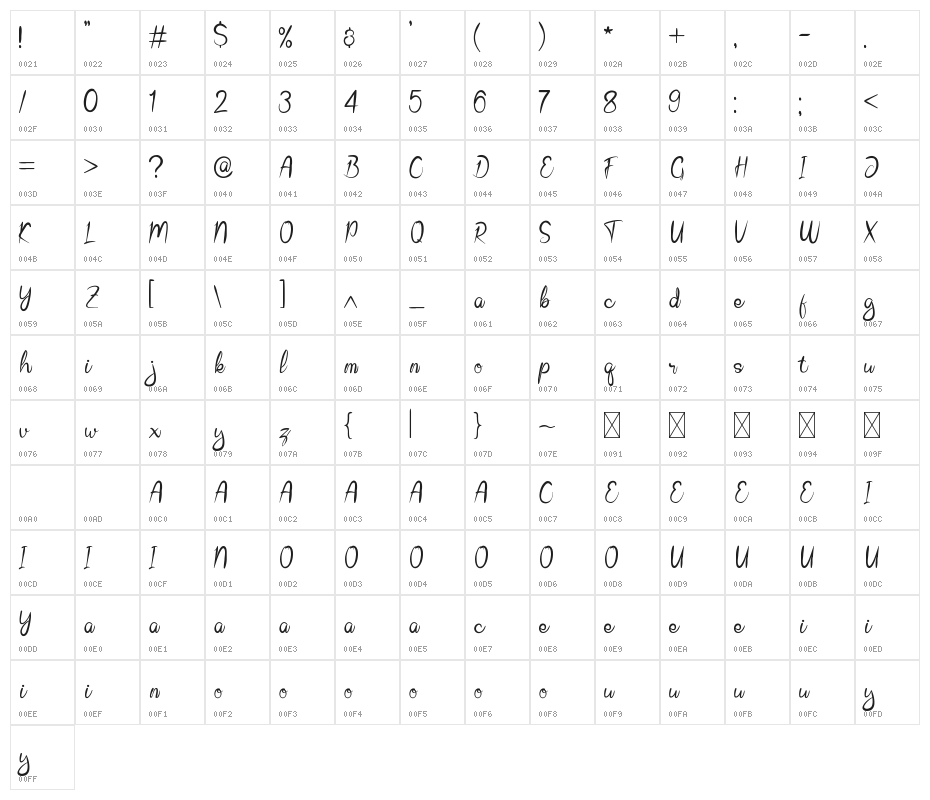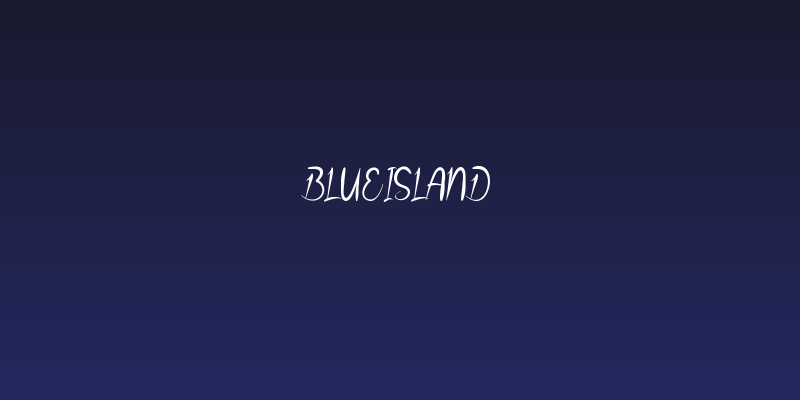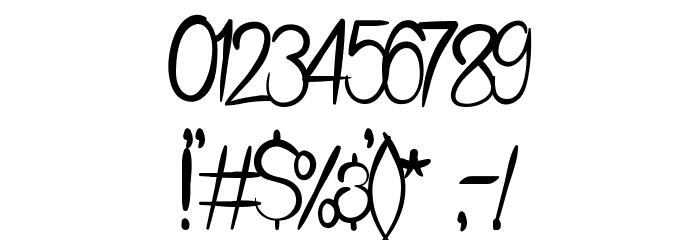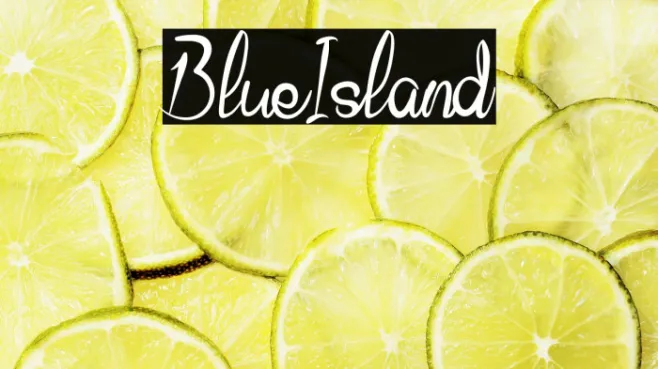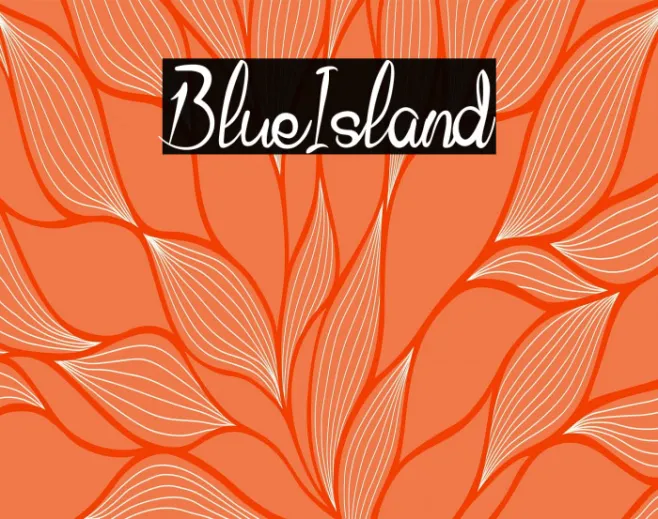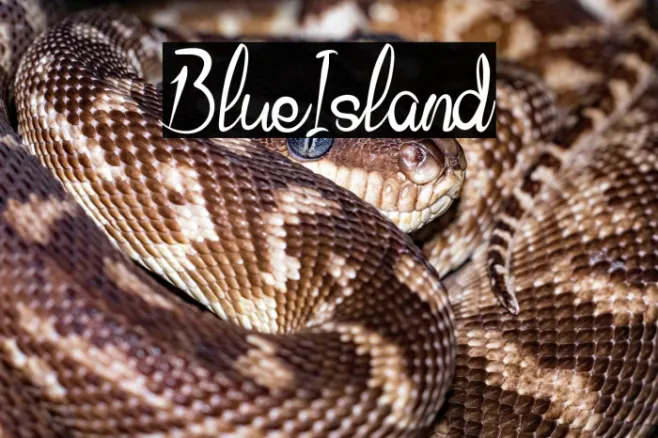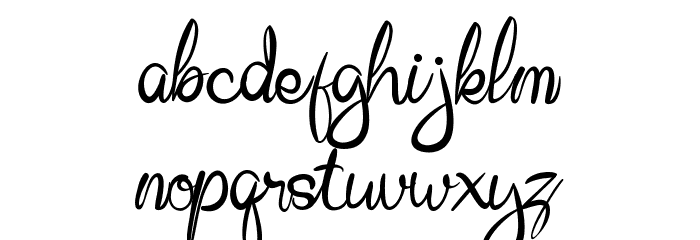
BlueIsland Font
BlueIsland Description
This font exhibits a lively and dynamic script style, characterized by its flowing and interconnected letterforms. The uppercase letters are bold and expressive, with a slight slant that adds a sense of movement. The lowercase letters maintain a consistent style, featuring loops and curves that enhance its handwritten appearance. The numerals are distinct and maintain the same fluidity, ensuring readability while keeping the playful aesthetic. Special characters are creatively integrated, matching the overall whimsical and artistic vibe of the font.